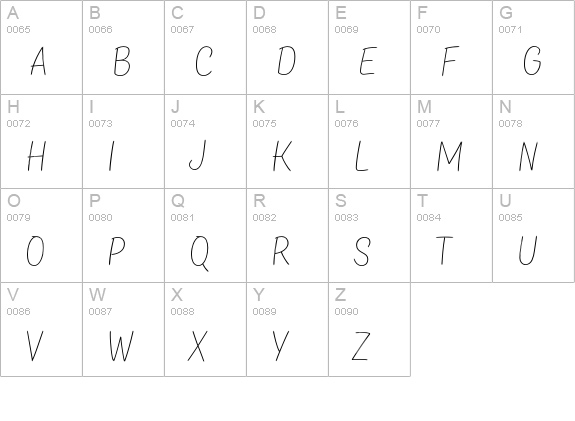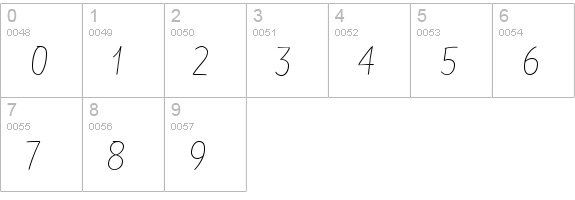
TT Masters Birds Thin Font Details
TT Masters Birds Thin is a delicate, low-contrast variant in the TT typeface family \xE2\x80\x94 well suited to fashion editorial, minimal branding, and high-contrast display.
TT Masters Birds Thin font is a delicate and elegant typeface that exudes a sense of sophistication and modernity. With its slender and graceful letterforms, this font is perfect for conveying a sense of refinement in your design projects. The thin strokes and intricate details of TT Masters Birds Thin add a touch of elegance and style to any text. Moreover, TT Masters Birds Thin font is available for free download at FontsMarket.com, making it easily accessible to anyone looking to enhance their designs with a touch of sophistication. Whether you're working on a branding project, a wedding invitation, or any other creative endeavor, TT Masters Birds Thin font is sure to add a touch of class and elegance to your work. Download this exquisite font today and elevate your designs to new heights!